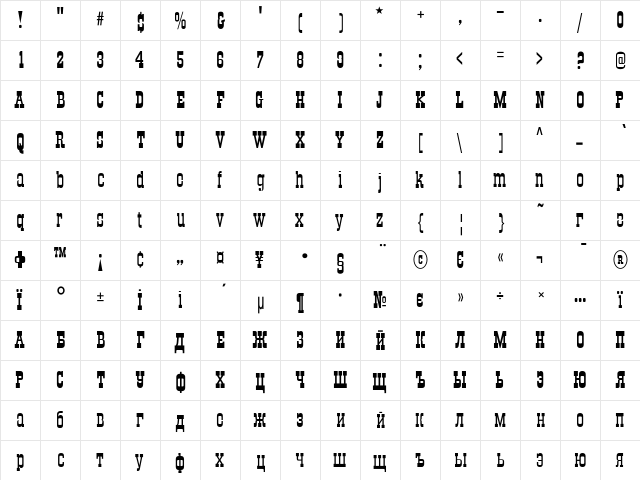
Traktir Normal Font Preview
Traktir Normal
Design Context for Traktir Typeface
Traktir is a composed and adaptable typeface that performs quietly and consistently across a wide range of design contexts.